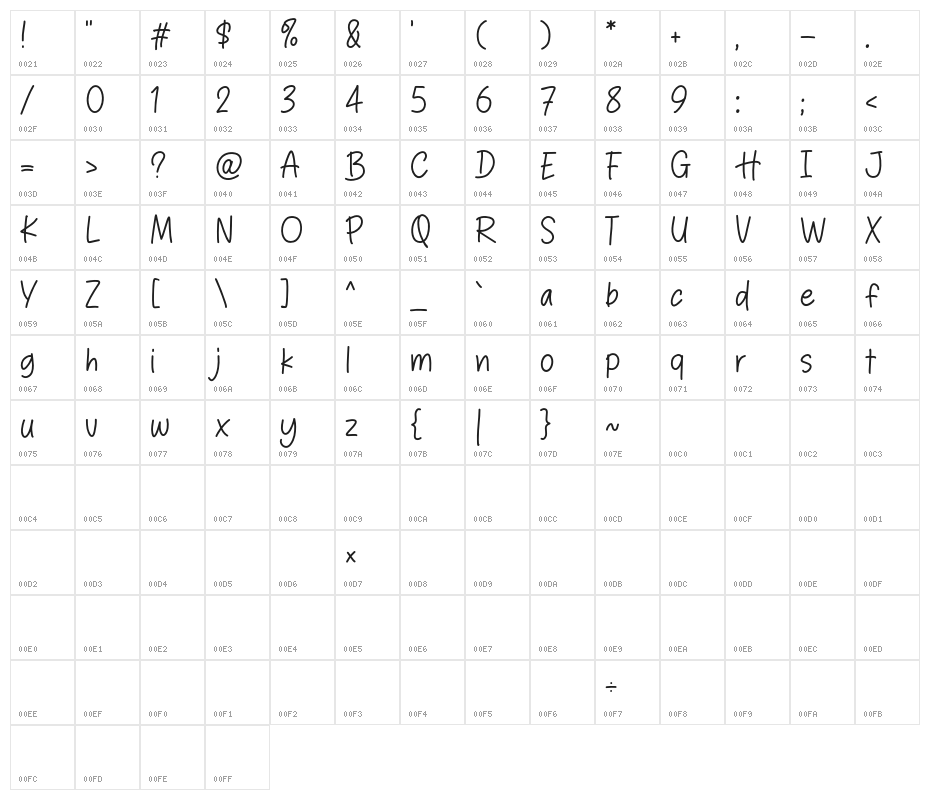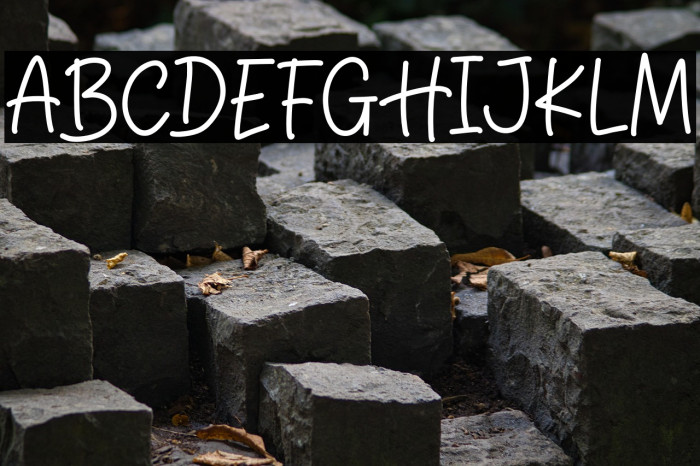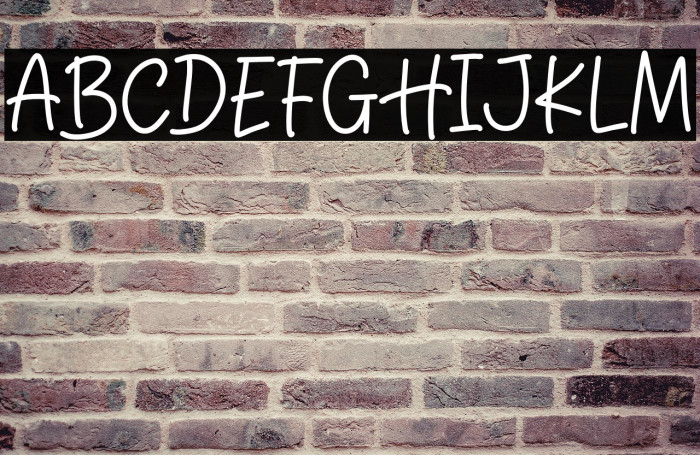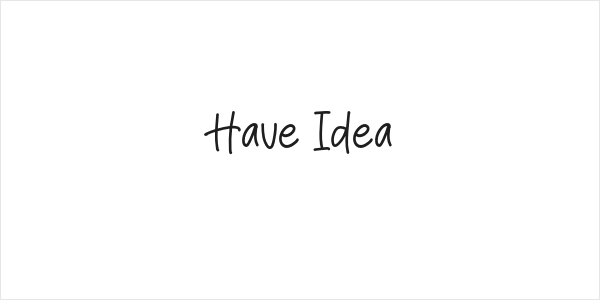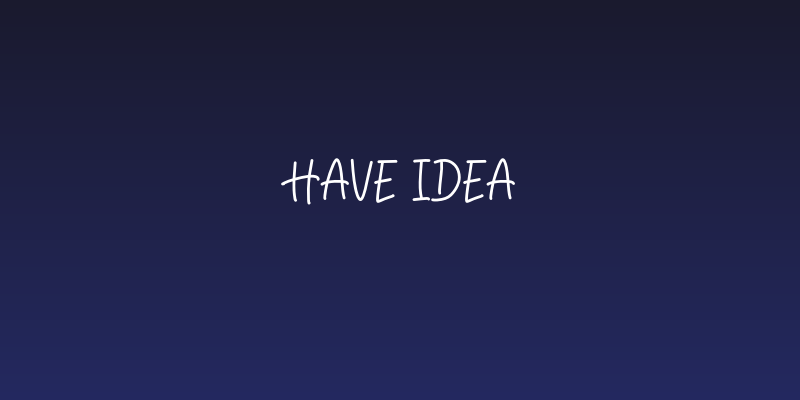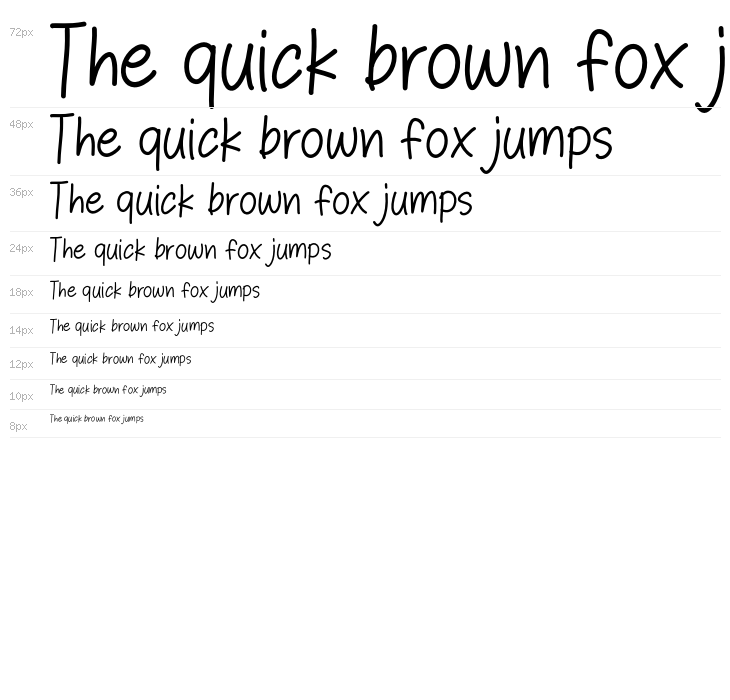
Have Idea Font
Have Idea Description
This font features a playful and casual handwritten style, characterized by its smooth, flowing lines and slightly irregular shapes. The letters are well-spaced, giving it a relaxed and approachable feel. The uppercase and lowercase letters maintain a consistent style, with rounded edges and a slight slant, enhancing its informal appearance. The numerals and special characters are designed to match the overall aesthetic, ensuring a cohesive look across all text elements. This font is ideal for projects that require a personal touch or a friendly, informal tone.
| Overall Style | Casual, Playful |
| Use Case | Headlines, Informal text, Personal projects |
| Proposed Projects | Ideal for greeting cards, invitations, personal blogs, and informal branding projects. |